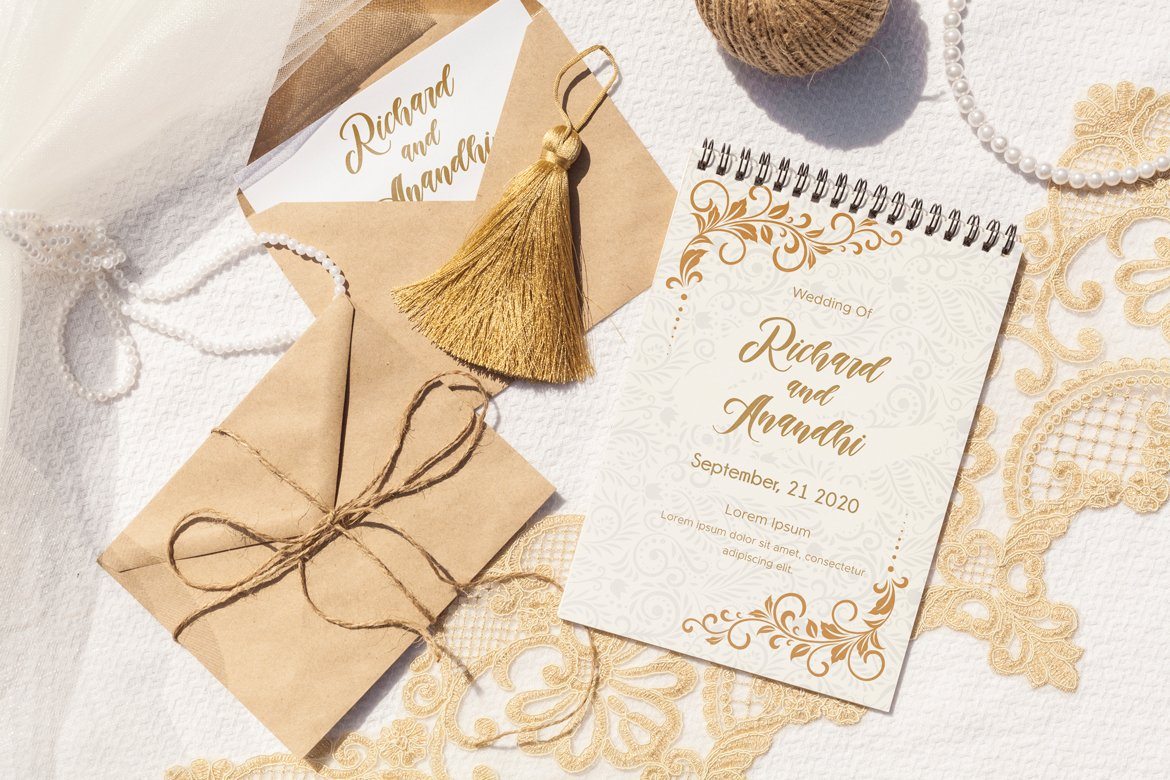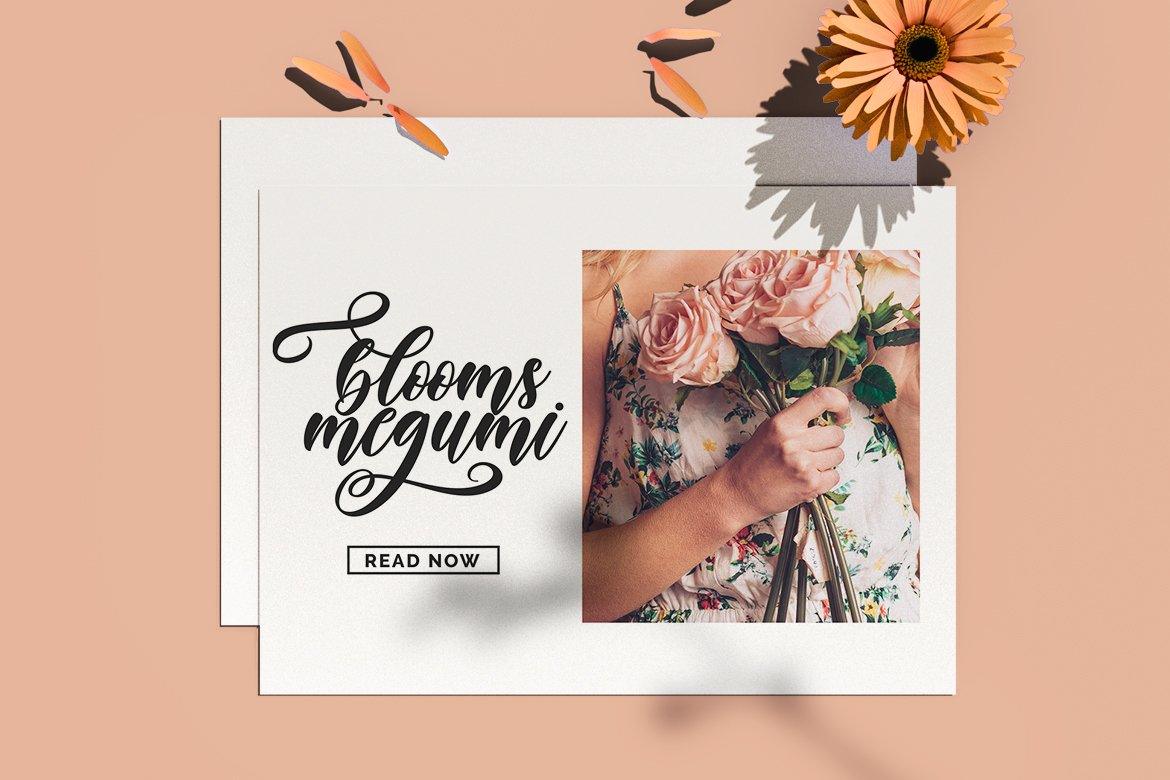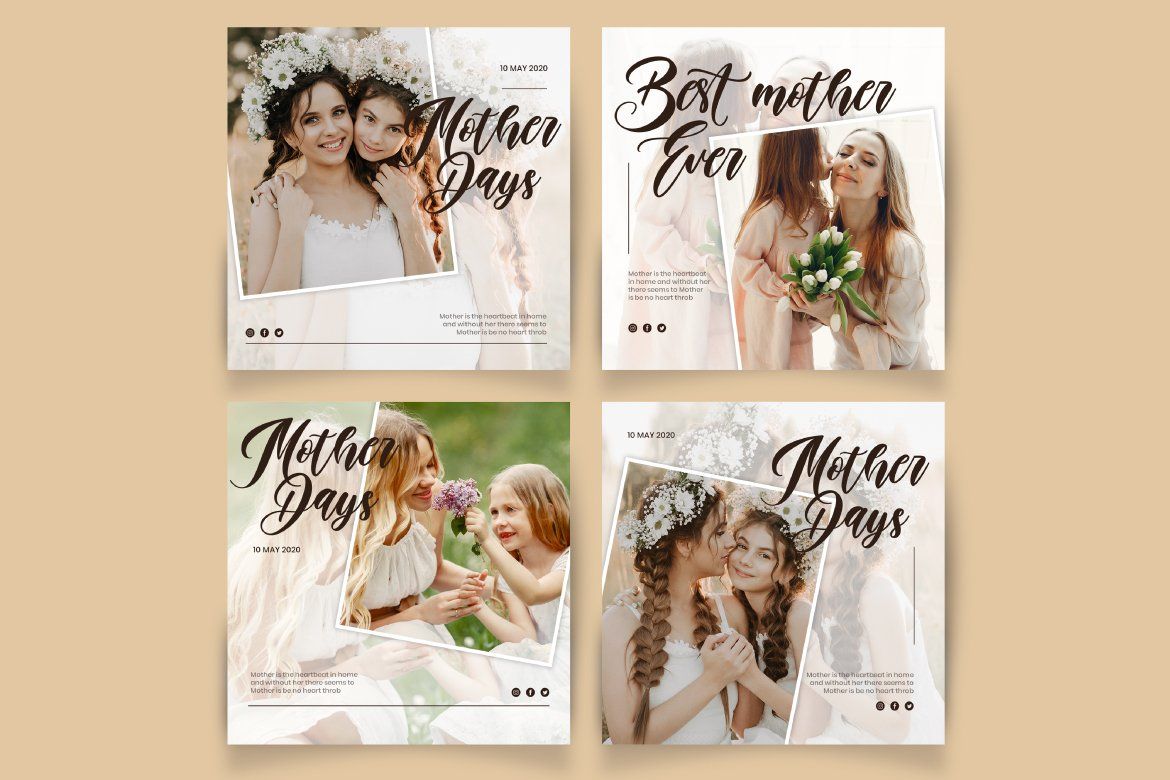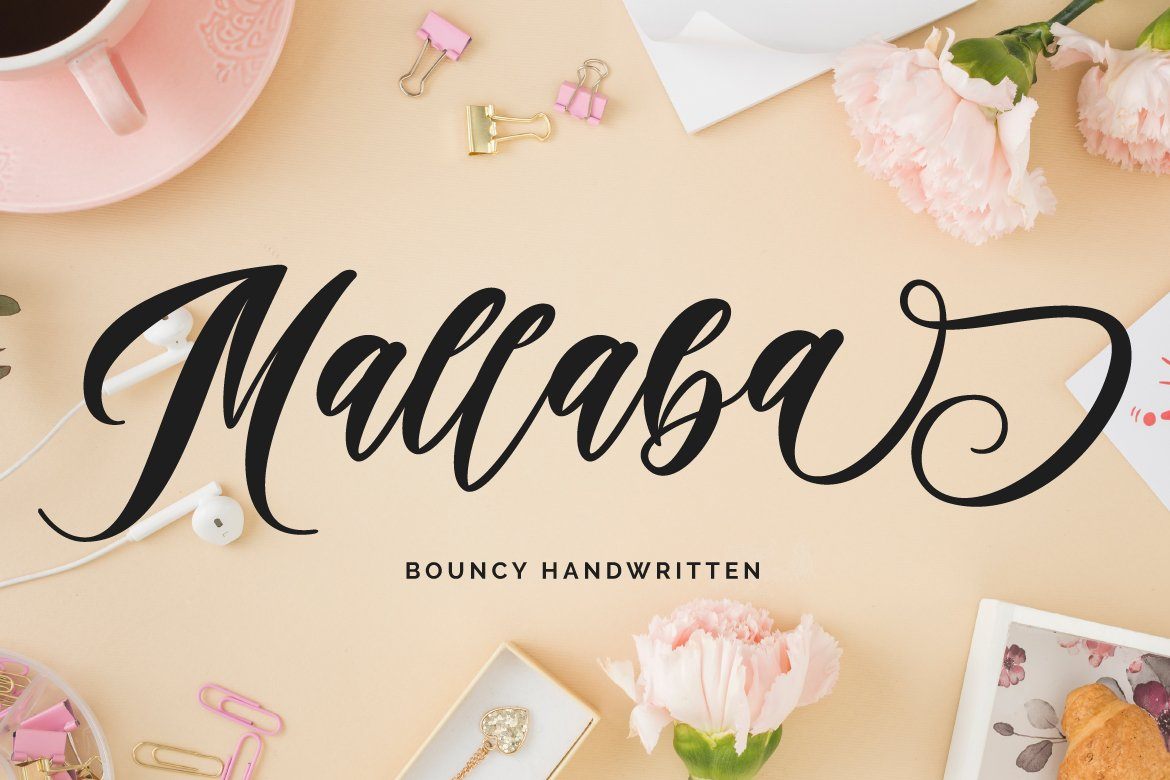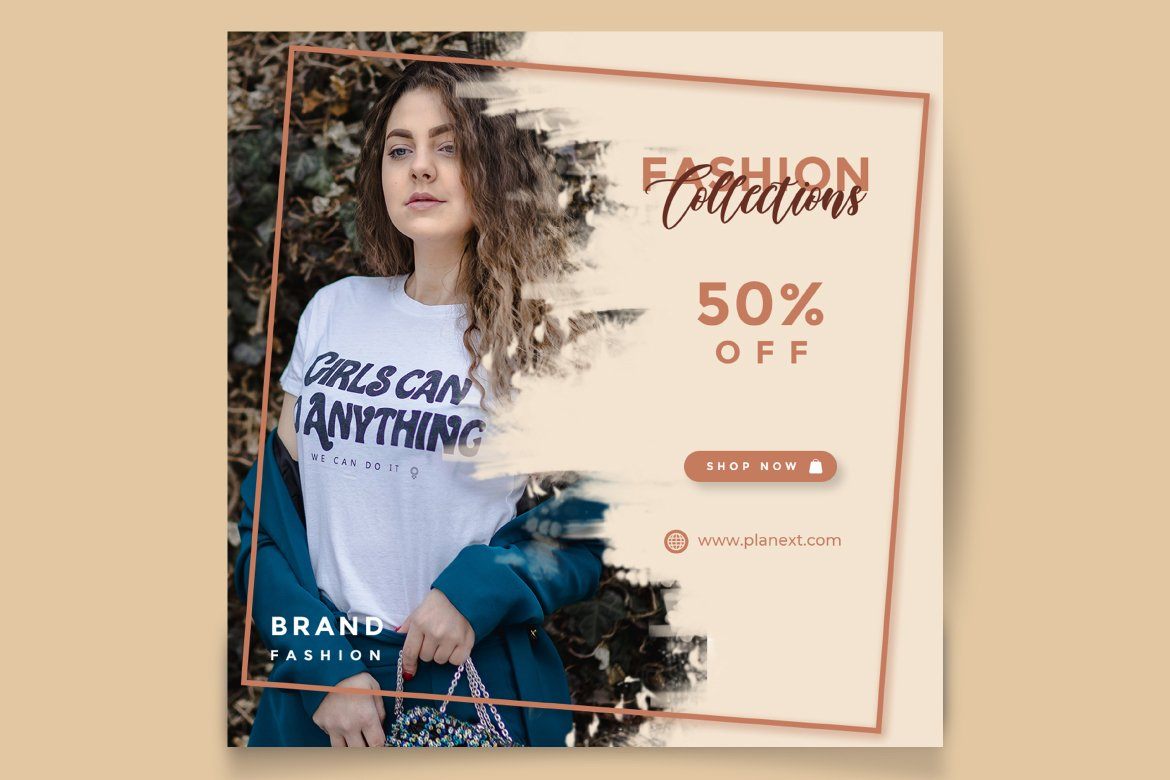
Mallaba – Bouncy Handwritten
About Mallaba – Bouncy Handwritten
Introducing Mallaba Bouncy Handwritten Script Font. Mallaba is an amazing bouncy handwritten brush font . Made with naturally handwritten. The font will make your design more beautiful and powerful. This font is suitable for any design like branding, quotes and etc. I hope you enjoy it !! Thanks for visiting and downloading my font!what’s inside : Mallaba otf,ttf,woff Accents (Multilingual Characters) PUA encoded Numerals and Punctuations (OpenType Standard) Many of alternates